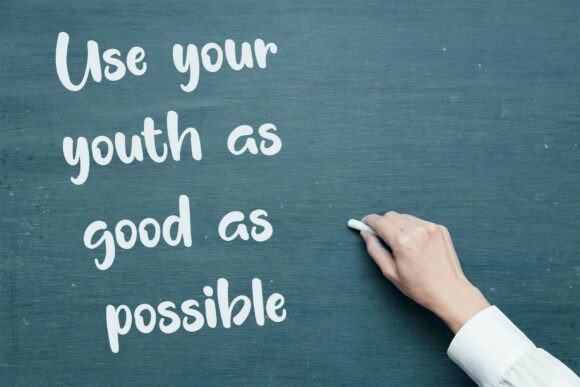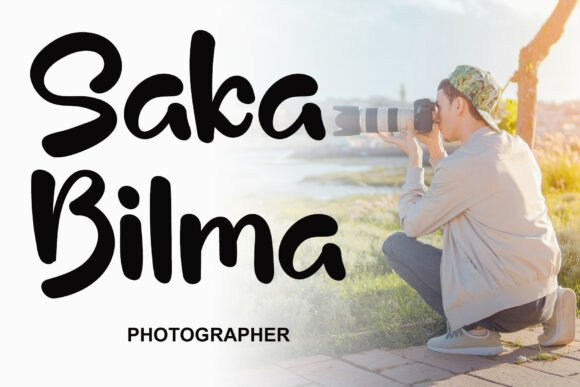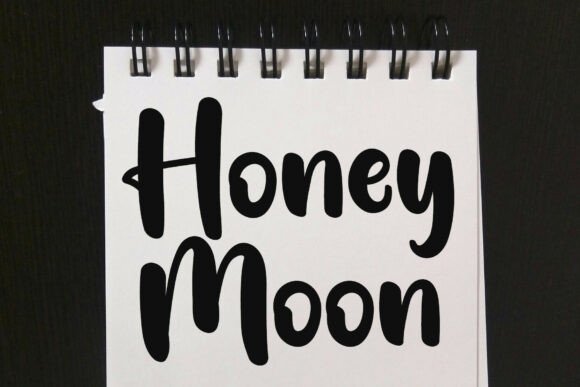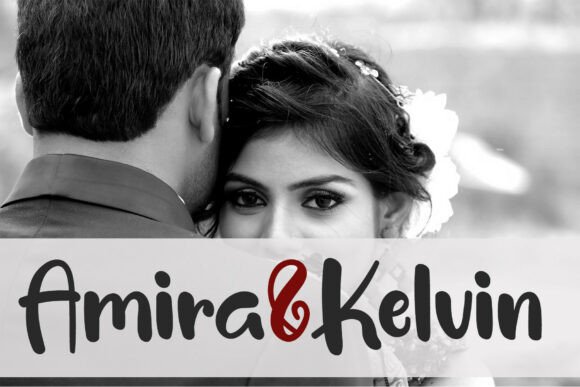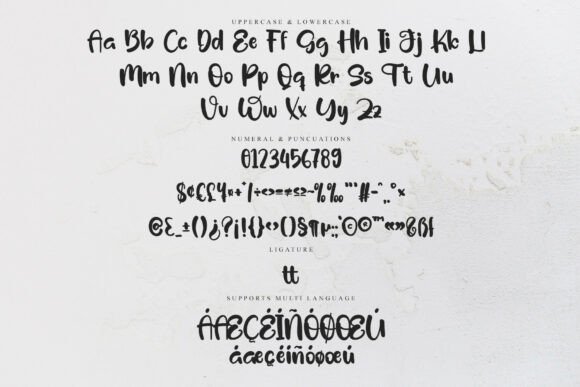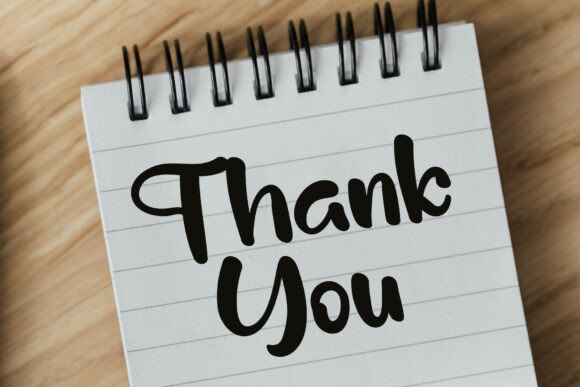
Unleash Your Creativity with Blanking Font: The Ultimate Choice for Bold and Elegant Designs
In the world of typography, fonts play a crucial role in conveying the tone and personality of a brand. When it comes to making a statement, a well-crafted font can be the game-changer. This is where Blanking Font comes into the picture. Blanking is a font that captivates with its bold, fluid strokes and dynamic script style. Designed to exude strength, elegance, and charisma, this font blends the beauty of handwritten calligraphy with a modern and assertive touch.
The Unique Charm of Blanking Font
Blanking Font is not just another addition to the vast sea of typefaces. Its unique charm lies in its ability to seamlessly merge traditional calligraphy with contemporary design elements. The result is a font that is both timeless and trendy, capable of elevating any design project to new heights. Whether you need a striking logo, a stylish headline, or an eye-catching branding element, Blanking Font delivers with confidence and flair.
Key Features of Blanking Font
- Bold and Fluid Strokes: The bold strokes of Blanking Font give it a strong and assertive presence, making it perfect for designs that require a confident and powerful look.
- Dynamic Script Style: The fluid, dynamic script style of Blanking Font adds an element of elegance and sophistication, making it ideal for high-end branding and luxury designs.
- Handwritten Calligraphy: The font’s handwritten calligraphy roots give it a personal and human touch, allowing designers to create unique and bespoke designs.
- Modern and Assertive: Blanking Font’s modern and assertive design ensures that it stays ahead of the curve, making it perfect for contemporary brands and designs.
Applications of Blanking Font
Blanking Font’s versatility makes it suitable for a wide range of design applications. Here are some of the ways you can use this stunning font:
- Logo Design: Create a striking logo that makes a statement with Blanking Font’s bold and fluid strokes.
- Headlines and Titles: Use Blanking Font to create stylish and eye-catching headlines and titles that grab attention.
- Branding and Packaging: Elevate your brand’s visual identity with Blanking Font’s elegant and sophisticated design.
- Advertising and Marketing: Make your advertising and marketing materials stand out with Blanking Font’s dynamic script style.
Why Choose Blanking Font?
With so many fonts available, why choose Blanking Font? Here are some compelling reasons:
- Unique and Distinctive: Blanking Font’s unique blend of traditional calligraphy and modern design elements makes it stand out from the crowd.
- Highly Versatile: The font’s versatility makes it suitable for a wide range of design applications and industries.
- Easy to Read: Despite its bold and dynamic design, Blanking Font remains easy to read, making it perfect for body text and headlines.
- Customizable: Blanking Font can be customized to fit your brand’s unique needs, allowing you to create a bespoke design that reflects your brand’s personality.
Blanking Font is a game-changer for designers and crafters looking to create bold, elegant, and eye-catching designs. Its unique blend of traditional calligraphy and modern design elements makes it a standout font that can elevate any design project to new heights. Whether you’re looking to create a striking logo, a stylish headline, or an eye-catching branding element, Blanking Font is the ultimate choice. So why wait? Unleash your creativity with Blanking Font and take your designs to the next level.